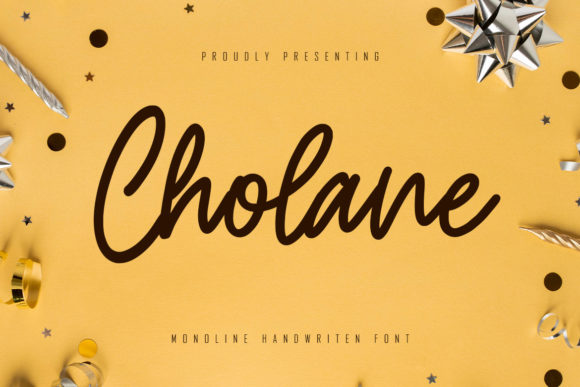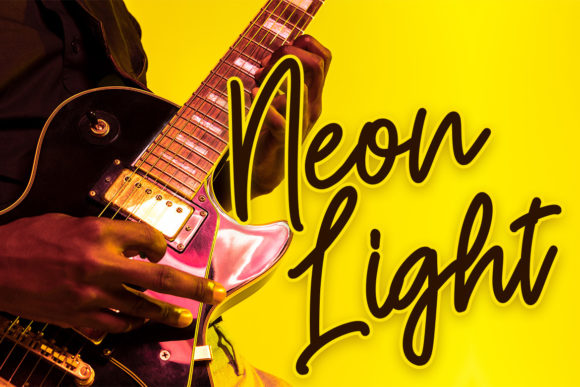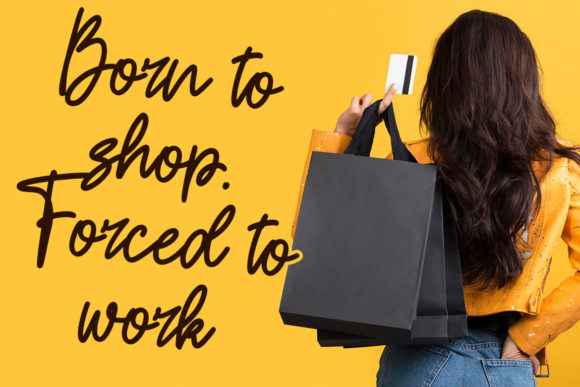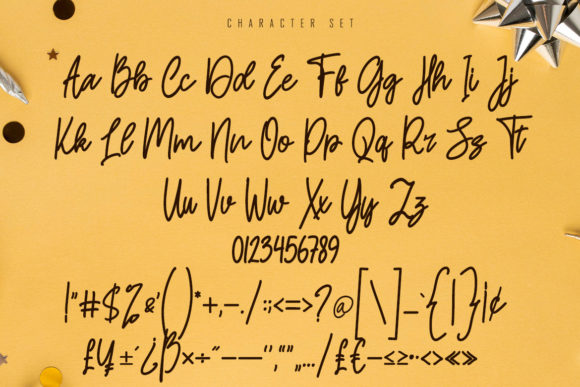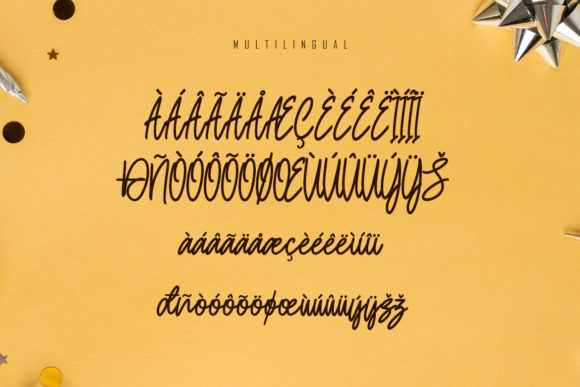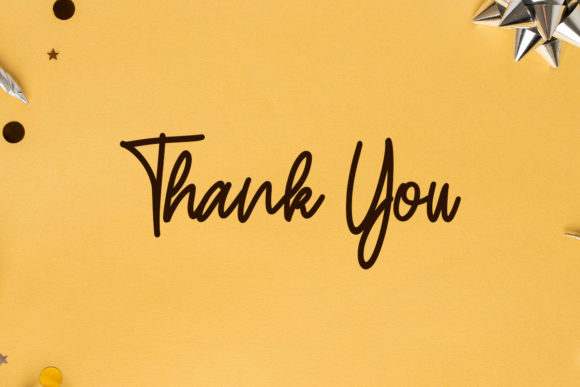
Cholane Font
About Cholane Font
Cholane is a simple and flowing script font that exudes elegance and class. This font was particularly crafted for those who need a beautiful and refreshing look to their designs.